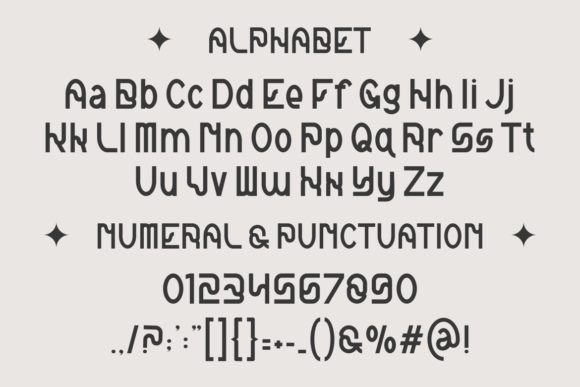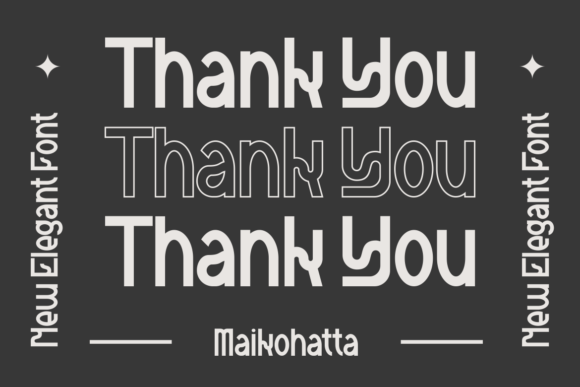
Introducing Eosan Font: The Modern Display Font for Bold Designs
In the world of design, fonts play a crucial role in conveying the message and tone of a project. A well-chosen font can elevate a design from ordinary to extraordinary, making it essential for designers and crafters to have access to high-quality fonts. Today, we’re excited to introduce our new product, Eosan Font – a modern display font that’s bold, authentic, and versatile.
What is Eosan Font?
Eosan Font is a bold and authentic display font designed to make a statement. Its modern aesthetic makes it perfect for a wide range of contexts, from branding and logos to t-shirt printing and esports. The font’s unique character and style set it apart from other fonts, making it an excellent choice for designers looking to create something distinctive.
Key Features of Eosan Font
- Bold and Authentic: Eosan Font is designed to be bold and authentic, making it perfect for headlines, titles, and other display text.
- Versatile: The font is suitable for a wide range of contexts, including branding, logos, t-shirt printing, esports, and more.
- Modern Aesthetic: Eosan Font has a modern aesthetic that’s perfect for designers looking to create something fresh and contemporary.
- Easily Readable: Despite its bold style, Eosan Font is easily readable, making it perfect for use in a variety of applications.
Use Cases for Eosan Font
Eosan Font is an incredibly versatile font that can be used in a variety of contexts. Here are some use cases to get you started:
- Branding and Logos: Use Eosan Font to create bold and memorable logos that make a statement.
- T-Shirt Printing: Eosan Font is perfect for t-shirt printing, adding a modern touch to any design.
- Esports: The font’s bold and modern aesthetic makes it perfect for esports teams, players, and events.
- Posters and Flyers: Use Eosan Font to create eye-catching posters and flyers that grab attention.
- Social Media Graphics: Eosan Font is perfect for social media graphics, adding a bold and modern touch to any design.
Why Choose Eosan Font?
With so many fonts available, why choose Eosan Font? Here are a few reasons why:
- Unique Style: Eosan Font has a unique style that sets it apart from other fonts.
- High-Quality Design: The font is designed to be high-quality, with clean lines and smooth curves.
- Easy to Use: Eosan Font is easy to use, with a simple and intuitive design.
- Versatile: The font is versatile, making it perfect for a wide range of contexts.
In conclusion, Eosan Font is a modern display font that’s bold, authentic, and versatile. Its unique style and high-quality design make it perfect for a wide range of contexts, from branding and logos to t-shirt printing and esports. Whether you’re a designer or crafter, Eosan Font is an excellent choice for anyone looking to create something distinctive and eye-catching. Try Eosan Font today and take your designs to the next level!